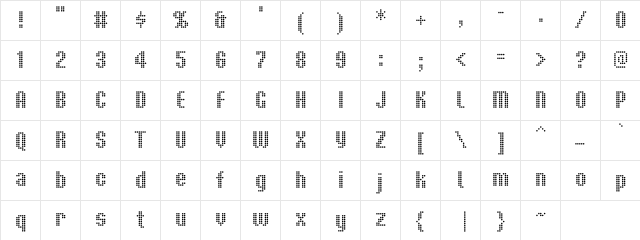
RhinestoneTwoPKA Regular
Design Context for RhinestoneTwoPKA Typeface
RhinestoneTwoPKA is a composed and adaptable typeface that performs quietly and consistently across a wide range of design contexts.